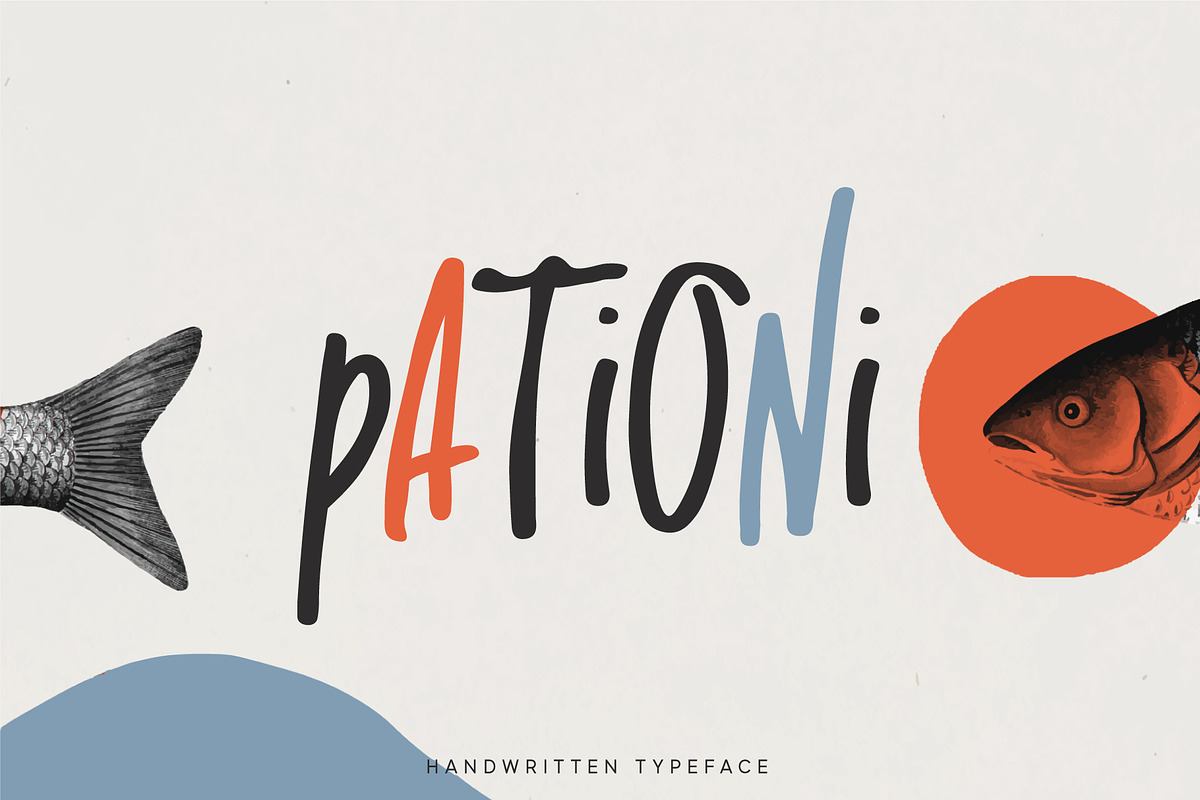
Pationi. Handwritten Typeface Free Download is a charming and expressive script font that adds a personal, handcrafted touch to any design. Please note, you are required to purchase this font for commercial use. It is available for free download for testing and personal projects only.
With its flowing strokes, natural rhythm, and elegant feel, Pationi is perfect for wedding invitations, logos, social media graphics, product packaging, and heartfelt branding. It captures the warmth and spontaneity of true handwriting, making your designs feel more intimate and human.